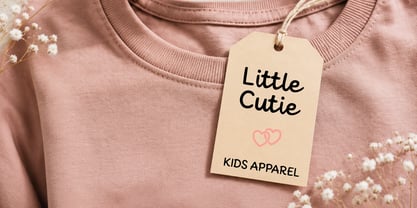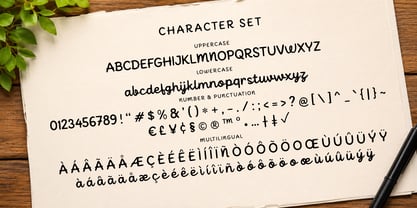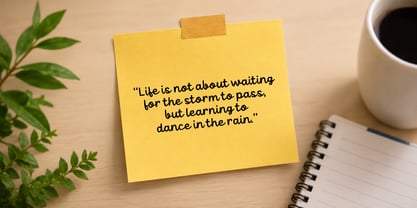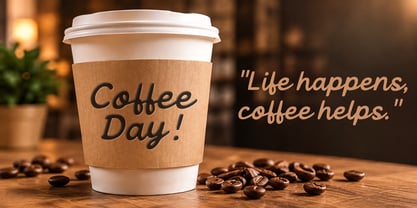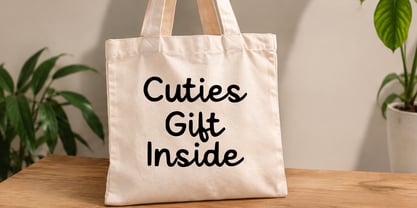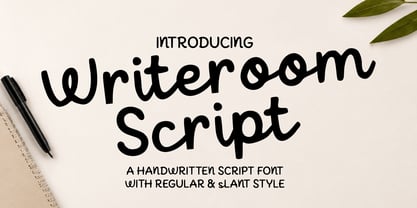
Writeroom Script
por Letterytz CalliType
La familia tipográfica Writeroom Script fue diseñada por Wahyu Eka Prasetya, Dian Angga Marytama y publicada por Letterytz CalliType. Writeroom Script contiene 2 estilos y opciones de paquete familiar. Más información sobre esta familia
Writeroom Script is a warm, playful handwritten font that blends casual elegance with a smooth, natural flow. Carefully crafted to deliver an authentic handwritten feel, this versatile script is perfect for branding, logos, product packaging, social media graphics, greeting cards, wedding invitations, quotes, children's designs, merchandise, and modern craft projects. Its clean curves and friendly personality make every design feel approachable, creative, and memorable.
Designed for both personal and commercial projects, Writeroom Script offers excellent readability while maintaining a charming handcrafted look. Whether you're creating eye-catching marketing materials or heartfelt DIY creations, this font adds a fresh and expressive touch to every composition.
Diseñadores: Wahyu Eka Prasetya, Dian Angga Marytama
Fundición: Letterytz CalliType